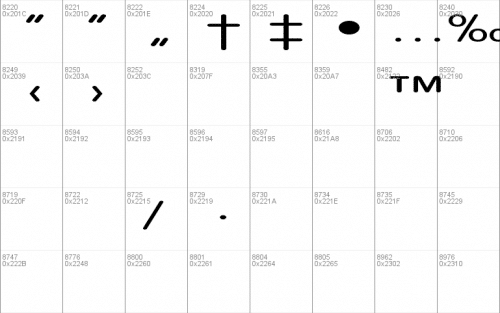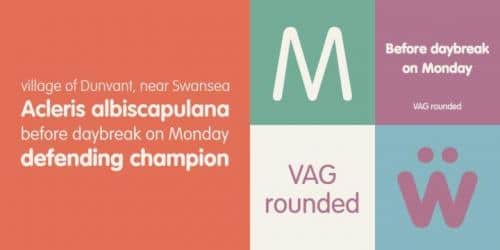
Originally commissioned in 1979 as a new corporate typeface for Volkswagen AG, the VAG Rounded™ family’s geometric sans letterforms feature distinct rounded terminals, imparting the design with a friendly, approachable demeanor.
With its design led by Gerry Barney, the VAG Rounded family remained in use for Volkswagen AG’s unified, worldwide automobile marketing for over a decade. The design was released for public use in 1989, and was bundled with many desktop publishing software titles available at the time. This opened the door for millions of computer users to work with the VAG Rounded type family.
Available in four weights—from thin to black the VAG Rounded family is an apt choice for logo design, identity systems, or any application where a typographic warmth is desired. For contrast in voice, consider pairing the design with a more reserved serif typeface, or a sans serif with narrow styles, such as those found in the Alternate Gothic, Trade Gothic, or FF DIN type families.
- Designer: Gerry Barney